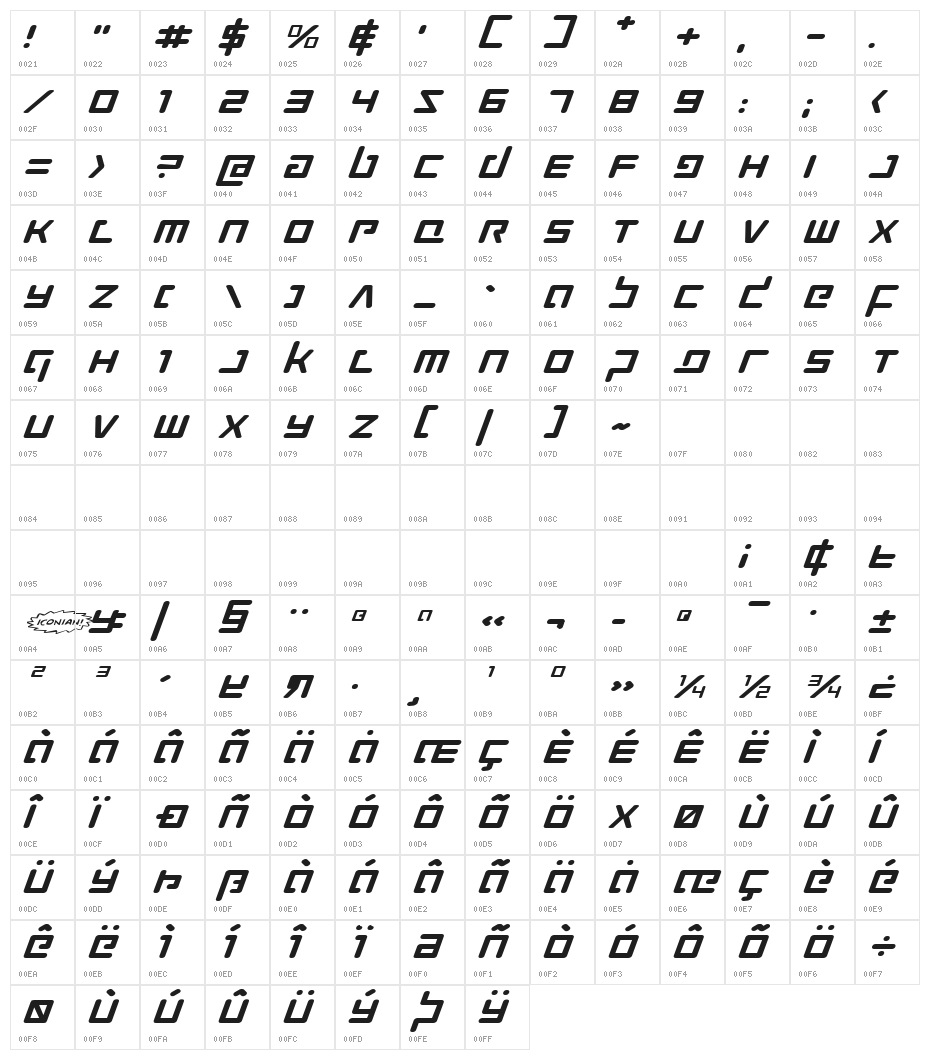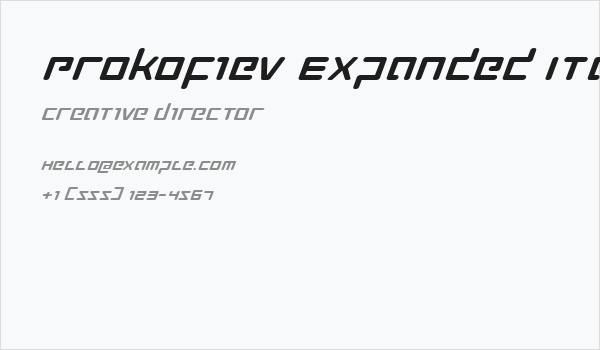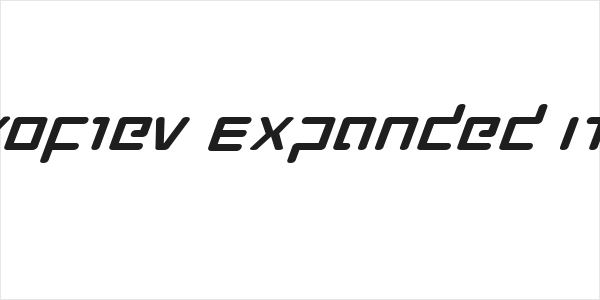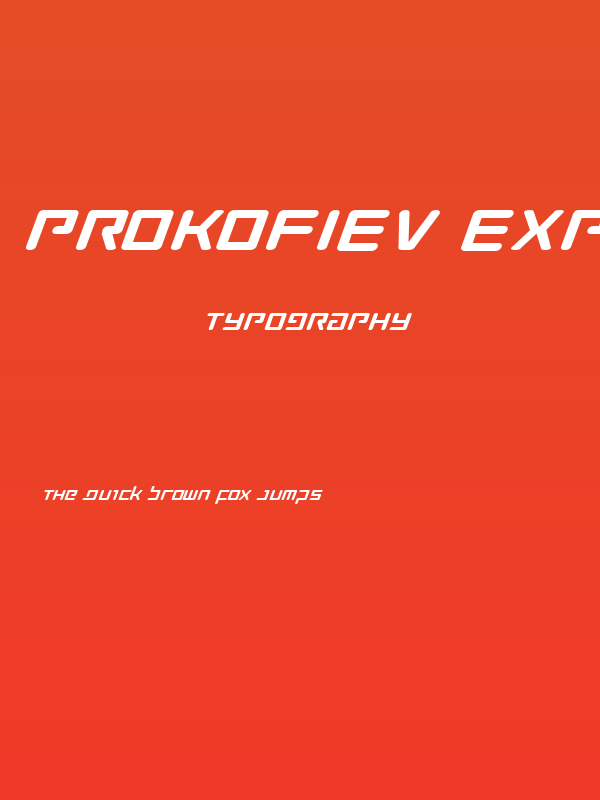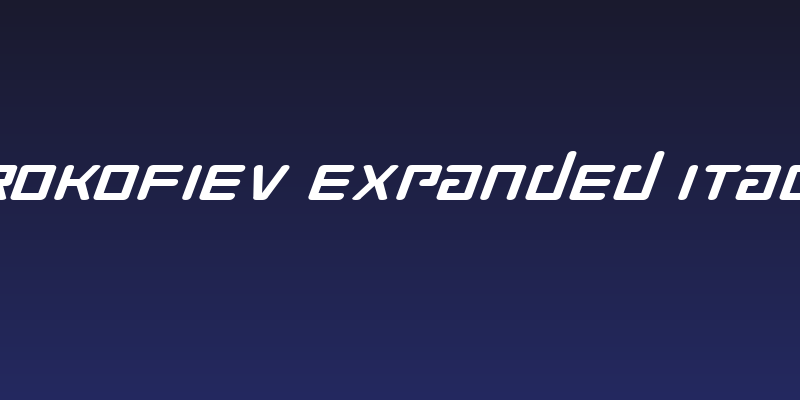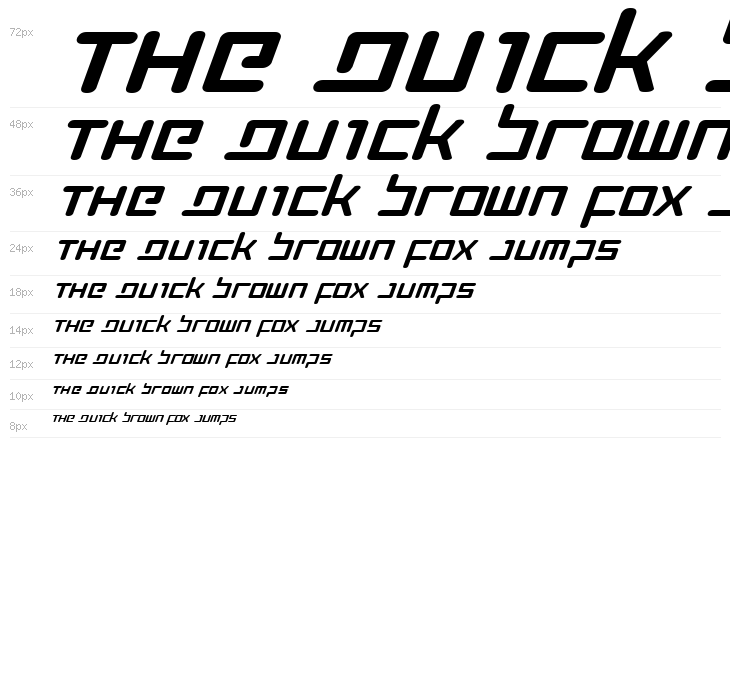
Prokofiev Expanded Italic Font
Prokofiev Expanded Italic Description
This font features a modern and sleek design with an expanded and italicized style. The characters are slightly slanted, giving a dynamic and forward-moving appearance. The strokes are consistent in thickness, providing a uniform look across all characters. The font is highly legible with a futuristic touch, making it suitable for contemporary designs. The expanded width allows for excellent readability, even at smaller sizes. The special characters maintain the same stylistic elements, ensuring consistency throughout the font set.
| Use Case | Headlines, Logos, Digital interfaces |
| Proposed Projects | Ideal for technology branding, modern advertising, futuristic posters, and digital interfaces. |